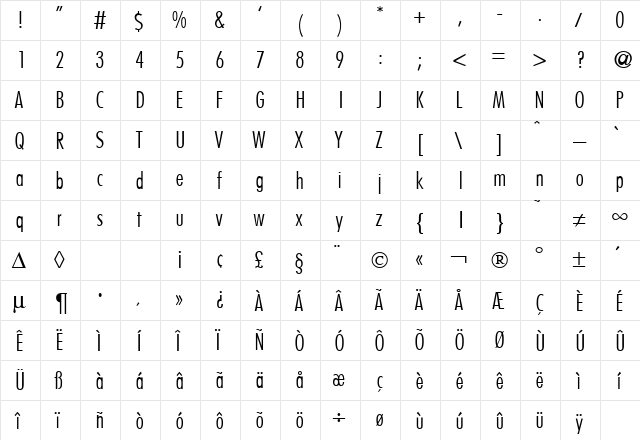
FunctionCondTwoLight Regular
Design Context for FunctionCondTwoLight Typeface
FunctionCondTwoLight trades formality for fun, with bouncy, characterful letterforms that bring warmth and energy to any project.
Font Pairing: Pairs well with a rounded or humanist sans for body copy, maintaining the friendly tone without relying on FunctionCondTwoLight to carry extended reading.
Pro Tip: Avoid using FunctionCondTwoLight for long passages of text — it works best for headlines, labels, and short calls to action.